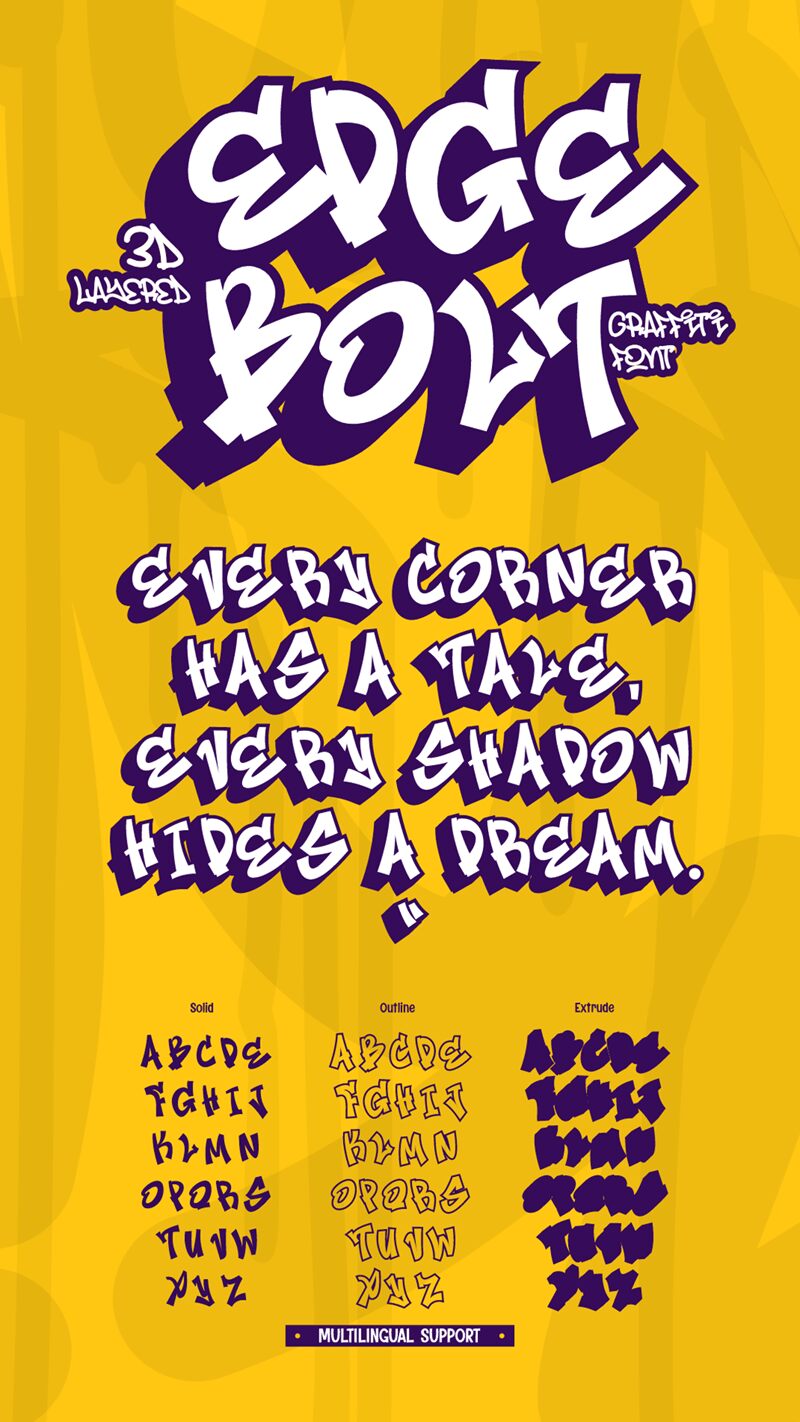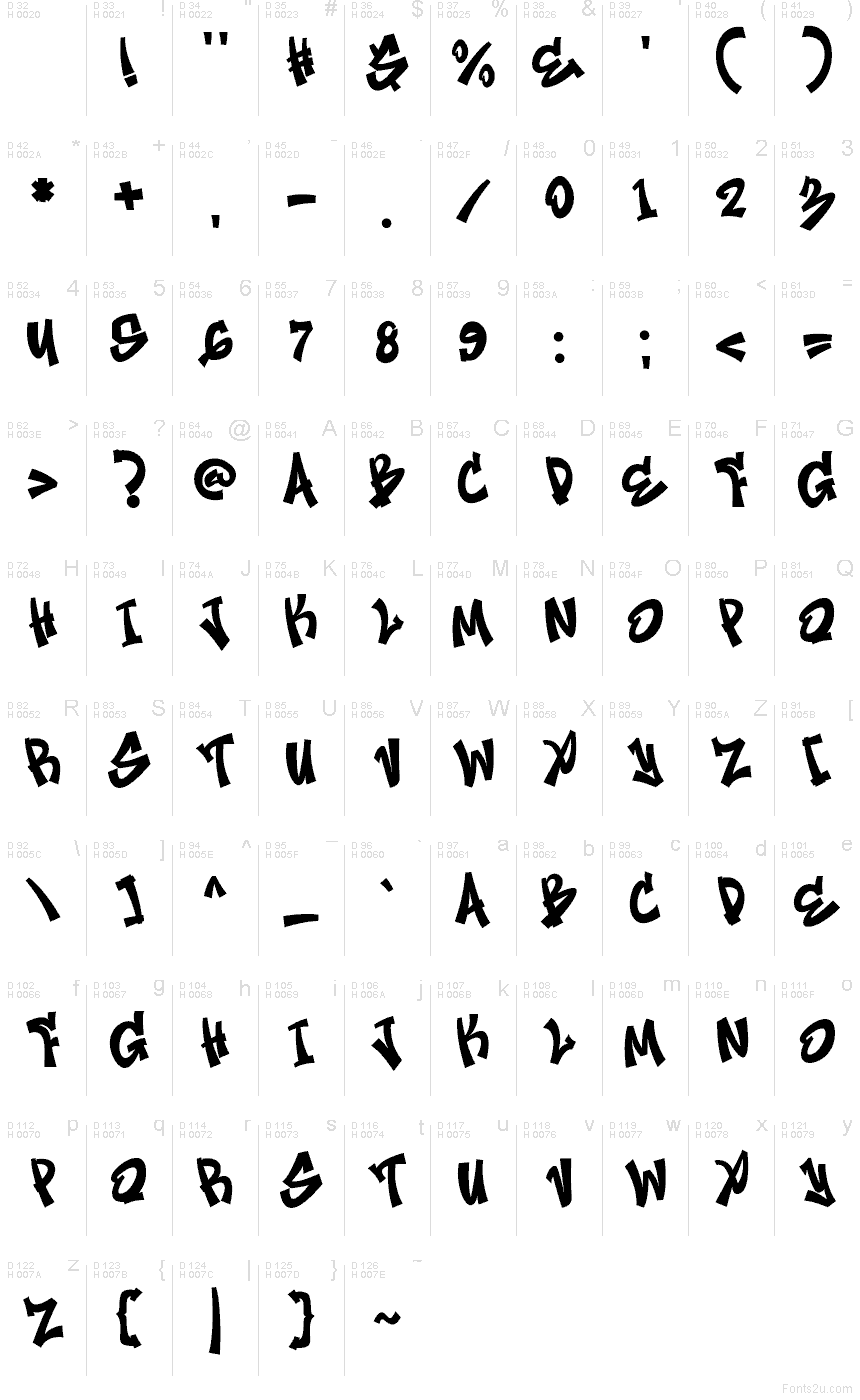
Edge Bolt
Edge Bolt font by Muhammad Panji Ramdhani of Sipanji x Figuree is a free graffiti font, and this typeface hits like a quick marker throw-up—chunky, slanted, and cut with sharp, lightning-bolt breaks. The strokes feel inky and restless, with tight spacing that keeps the wordmark loud and packed.
Using Edge Bolt on streetwear logos, skate posters, hip-hop covers, sneaker tags, YouTube thumbnails, event flyers, and sticker packs brings instant attitude without trying too hard. Pair it with a clean condensed sans for dates and details, and let Edge Bolt run bigger so its jagged rhythm stays readable.